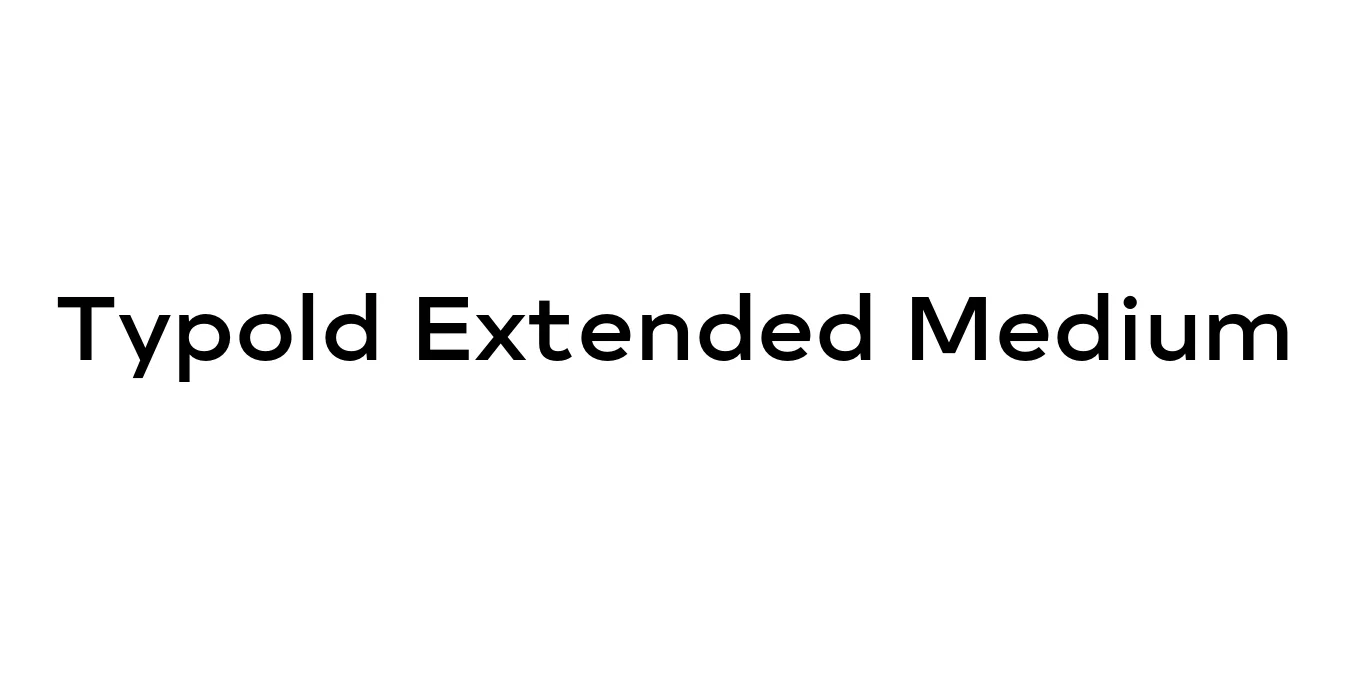
Typold Extended Medium
Designed by Jonathan Hill
Typold Extended Medium is a contemporary geometric sans-serif designed by Jonathan Hill for The Northern Block foundry. This specific variant belongs to a larger family designed with mathematical precision and balanced proportions, offering an expanded horizontal footprint that projects confidence and modernity. The Medium weight provides a solid typographic color that remains legible while making a strong visual statement.
The typeface is characterized by its circular forms and clean, minimalist construction, making it ideal for high-tech industries and luxury branding. By utilizing extended widths, designers can create unique layouts that break away from traditional verticality, lending a futuristic and spacious feel to digital interfaces and printed editorial content alike.
Typold Extended Medium Best Uses
Establishing a strong and reliable brand voice.
Making a bold impact on landing pages.
Clear and legible signage for modern environments.
Expansive headers and pull quotes.